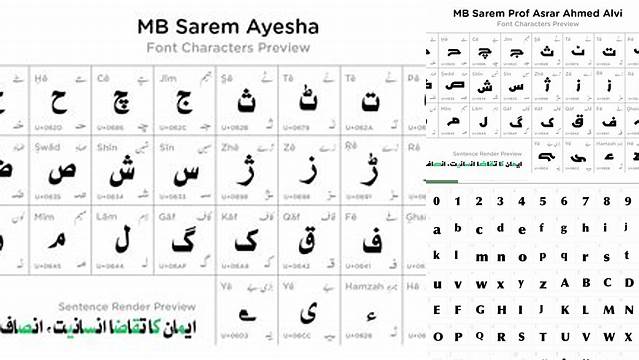
Exploring the MB Sarem Font Family
So, what's the big deal with the MB Sarem font family? Well, it's more than just a bunch of letters thrown together. It's a carefully crafted collection of typefaces designed to bring a certain je ne sais quoi to your designs. Whether you're working on a sleek, modern website or a rustic, vintage-inspired poster, there's likely an MB Sarem font that fits the bill. Let’s explore the nuances that define this font family and why it stands out in the crowded world of typography.
What Makes MB Sarem Fonts Unique?
MB Sarem fonts aren't your run-of-the-mill typefaces. They often feature unique characteristics such as distinct serifs, unusual letterform proportions, or intricate detailing that sets them apart. This uniqueness can add personality and flair to your projects, helping them stand out from the crowd. For instance, some fonts might have a playful, rounded design, while others boast a more sophisticated, angular appearance. This variety ensures that there's something for every design need, making MB Sarem fonts a versatile choice for designers.
Common Characteristics of MB Sarem Fonts
While each MB Sarem font has its own distinct style, there are some common threads that run through the family. These might include a focus on readability, a balanced contrast between thick and thin strokes, or a consistent overall aesthetic. These characteristics contribute to the fonts' versatility and make them suitable for a wide range of applications. Think of it as a family trait – each member is unique, but they all share certain core qualities that make them recognizable as part of the MB Sarem lineage.
Different Styles Within the MB Sarem Family
The MB Sarem font family isn't just one font – it's a collection of different styles, each with its own unique personality. You might find elegant serif fonts, modern sans-serif fonts, or even quirky display fonts within the family. This variety allows you to choose the perfect font for your specific project, whether you're designing a website, a logo, or a print advertisement. The diversity within the family ensures that you have the right tool for the job, no matter the design challenge.